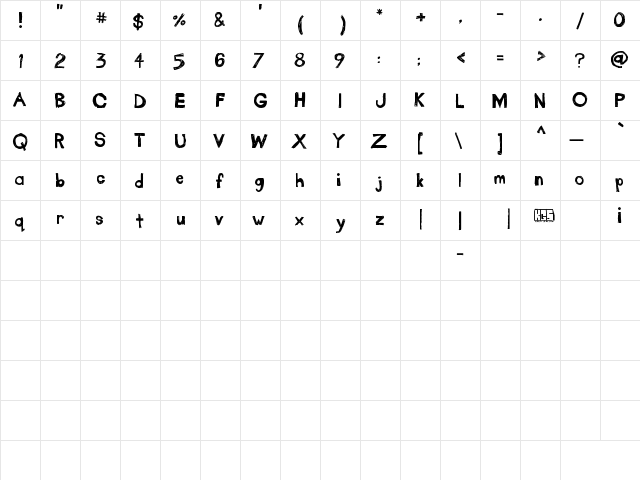
take_out_the_garbage Regular Font Preview
take_out_the_garbage Regular
Design Context for take_out_the_garbage Typeface
take_out_the_garbage is a composed and adaptable typeface that performs quietly and consistently across a wide range of design contexts.